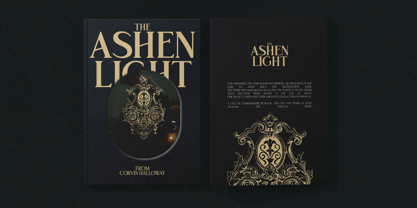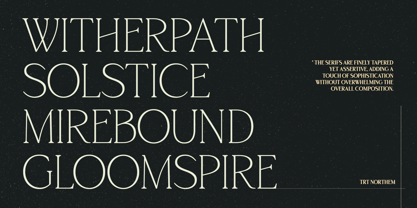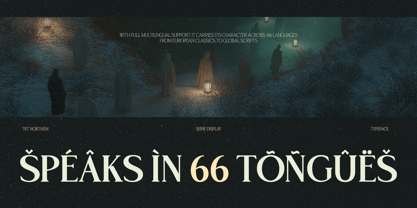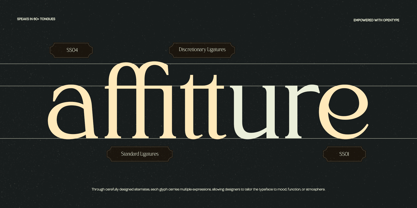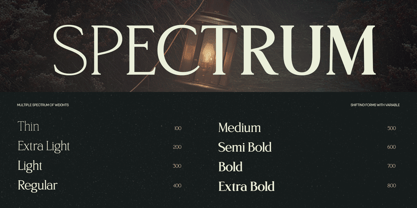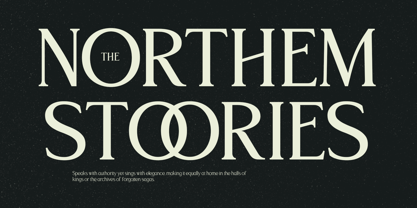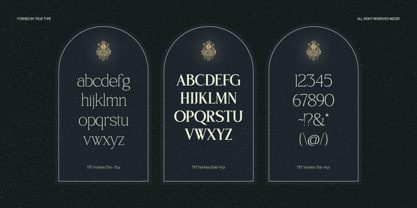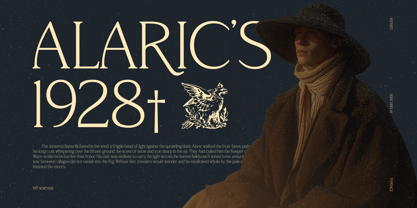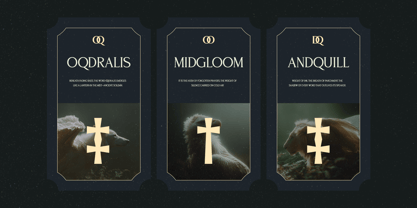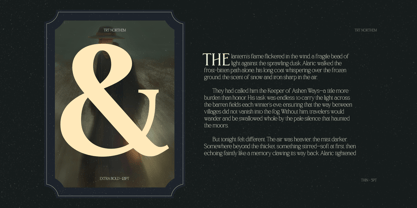
TRT Northem
The TRT Northem Font Family was designed by Yusilo Oktaprima Ardani and published by True Type Lab. TRT Northem contains 8 styles and family package options. More about this family
TRT Northem is an elegant serif font family crafted to bring sophistication and timeless beauty to your designs. With refined proportions and smooth contrast, it blends classic charm with modern functionality. Designed for versatility, TRT Northem works gracefully across editorial layouts, branding systems, book covers, packaging, and digital platforms. Its calm character and carefully tuned details offer both readability and elegance — ideal for projects that require a strong yet graceful typographic voice. TRT Northem provides a harmonious balance between structure and softness, making it suitable for both display and text sizes. Whether you're designing a luxury brand, a high-end magazine, or a professional presentation, TRT Northem delivers clarity and poise to elevate your visual storytelling. At True Type, we design fonts that feel honest, warm, and easy to connect with — built to help your words speak clearly and confidently. If you have any questions or need support, feel free to reach out. Ready to get started? Explore our collection and find the type that fits you best.